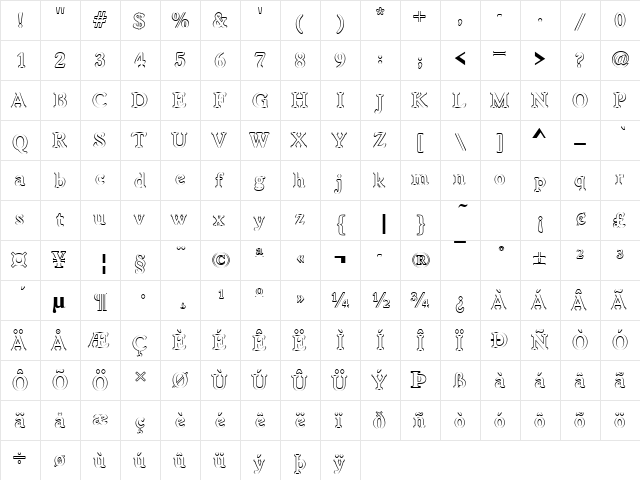
Worcester Becker Outline Bold Regular
Design Context for Worcester Becker Outline Bold Typeface
Worcester Becker Outline Bold brings ornamental detail and strong personality to headlines and identities, where visual impact matters more than quiet functionality. Its bold stroke weight gives it real presence on the page.
Font Pairing: Pair with a clean neutral sans-serif for body copy to let Worcester Becker Outline Bold's character lead without overwhelming the composition.
Pro Tip: Use Worcester Becker Outline Bold exclusively at display sizes — it was designed to be seen, not read at length. Let a neutral companion handle body copy.